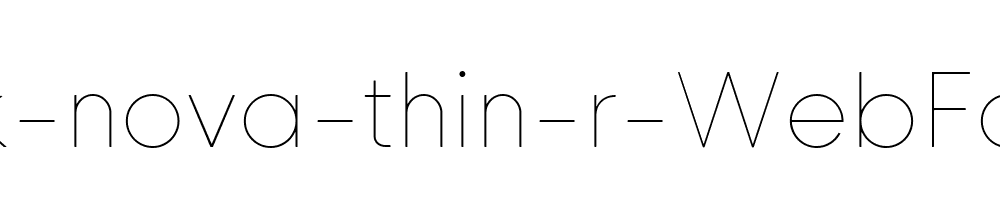
About hk-nova-thin-r-WebFont
The hk-nova-thin-r-WebFont is a sleek and elegant typeface that exudes sophistication and modernity. The font features clean lines and a minimalist design, making it perfect for a wide range of applications. The aperture of each letter is carefully crafted to create a sense of openness and clarity, while the ascenders and descenders give the font a balanced and harmonious look. The counter of the letters is open, adding a sense of lightness and airiness to the overall appearance. The crossbars are perfectly balanced, adding stability and structure to the letters. The font’s elegant curves and graceful arcs give it a sense of flow and movement, making it a versatile choice for both print and digital media.
Classified as Neutral – Expressive, the hk-nova-thin-r-WebFont strikes the perfect balance between a classic and progressive style. Its timeless appeal makes it suitable for a wide range of projects, from elegant branding to modern editorial design. The font’s friendly demeanor makes it approachable yet serious, perfect for conveying important information in a clear and concise manner. Its warm undertones add a touch of personality and charm, making it a standout choice for designers looking to make a lasting impression. With its clean lines and contemporary aesthetic, the hk-nova-thin-r-WebFont is a versatile and sophisticated font that is sure to elevate any design project.